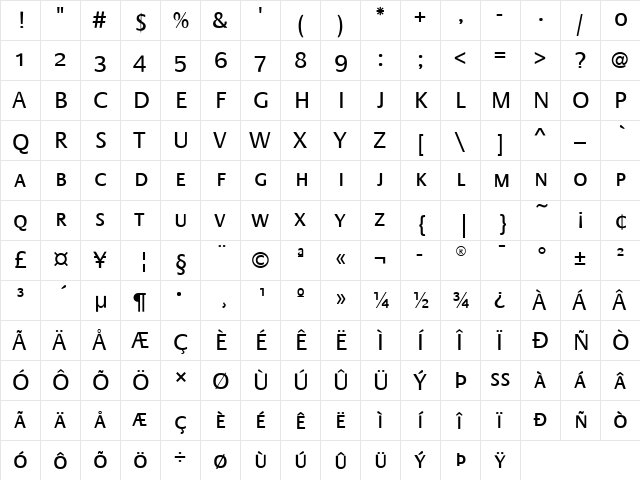
Praxis LT RegularSC Regular
Design Context for Praxis LT RegularSC Typeface
Praxis LT RegularSC is a composed and adaptable typeface that performs quietly and consistently across a wide range of design contexts. Its slender proportions lend an understated elegance to any composition.